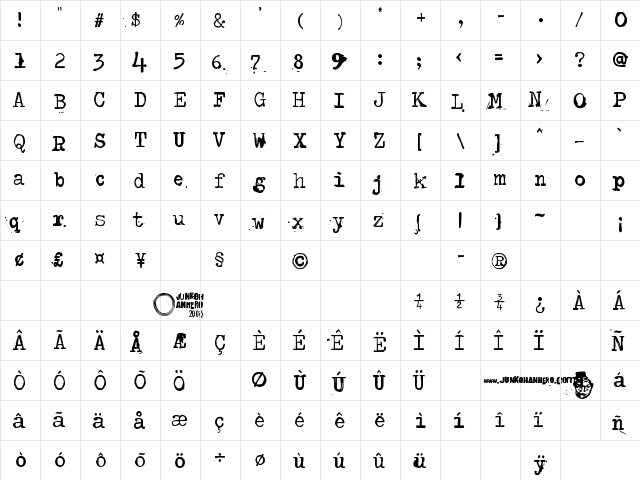
Type-Ra Regular
| Designer | junkohanhero |
Design Context for Type-Ra Typeface
Type-Ra is a composed and adaptable typeface that performs quietly and consistently across a wide range of design contexts.